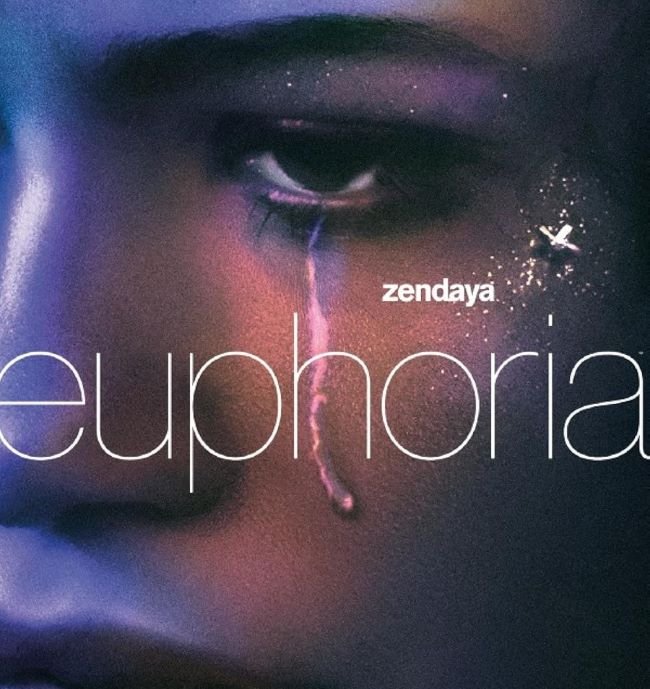
Euphoria Font is an ultra-light sans-serif font — Neue Helvetica Pro 25 Ultra Light in the original — used across Sam Levinson’s HBO teen drama that premiered in 2019 following Rue Bennett, a recovering addict navigating high school, identity, and relationships in a series celebrated for its extraordinary cinematography and unflinching portrayal of adolescent experience.
The extreme delicacy of this ultra-light sans-serif font — a weight so fine it seems barely present — mirrors the show’s aesthetic of beauty balanced at the edge of fragility, glamour that barely conceals genuine pain. Two free personal-use alternatives are available.